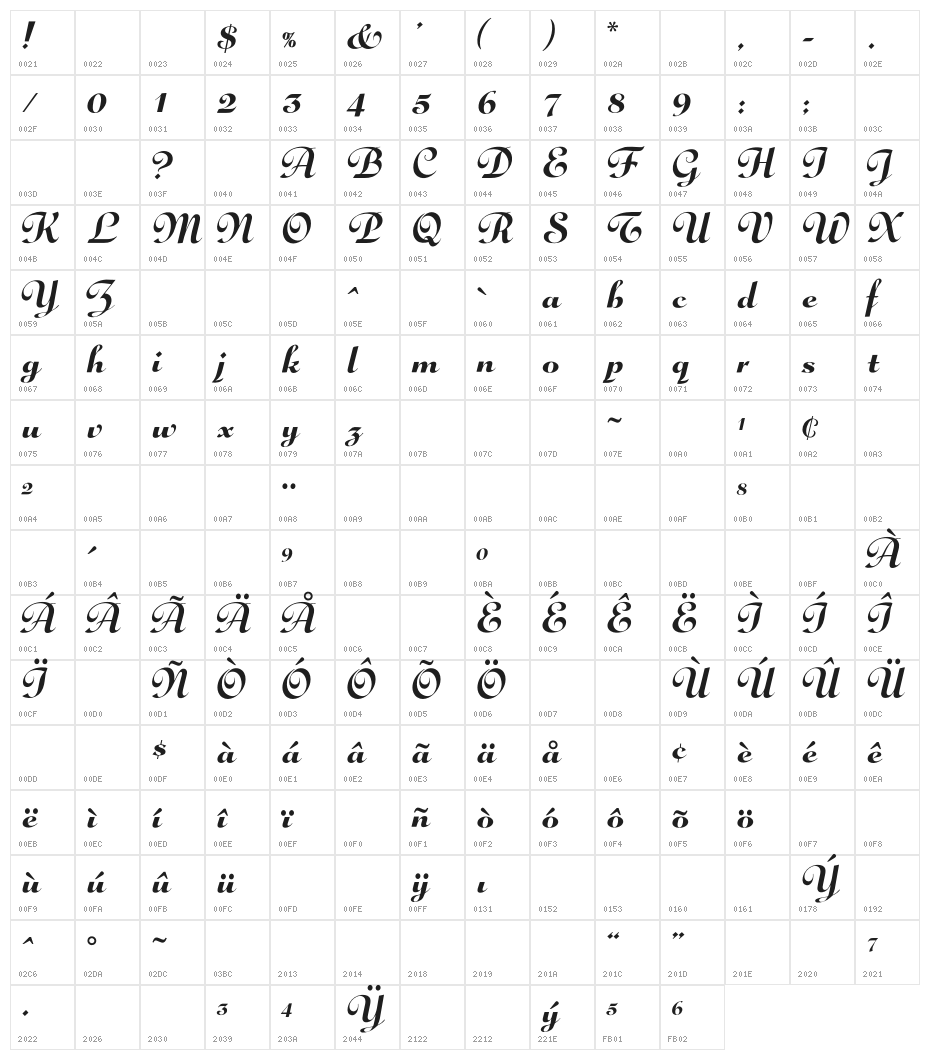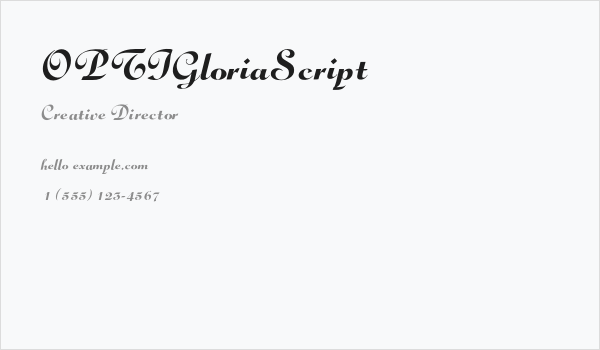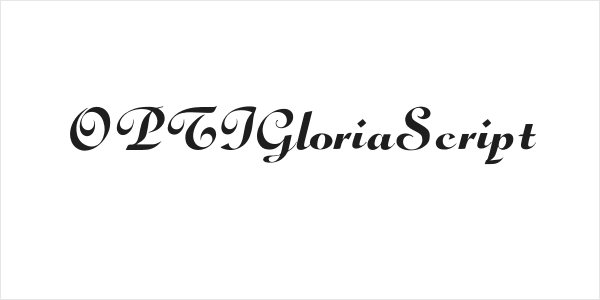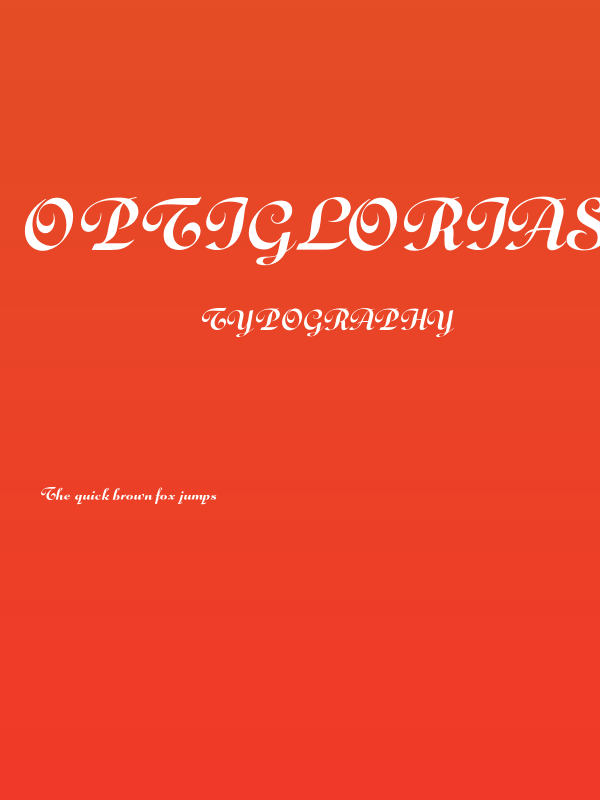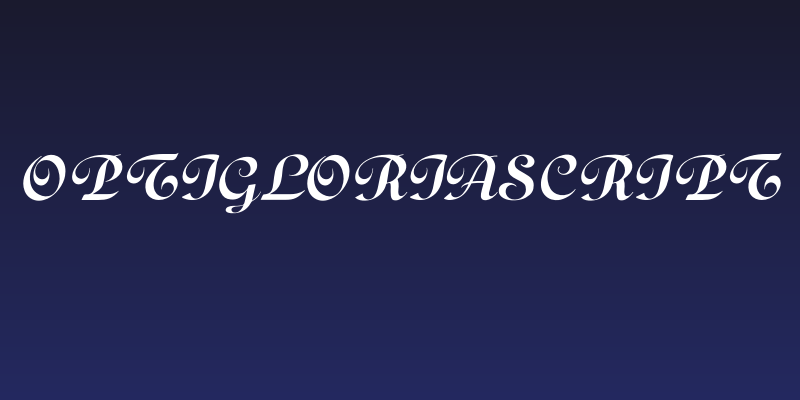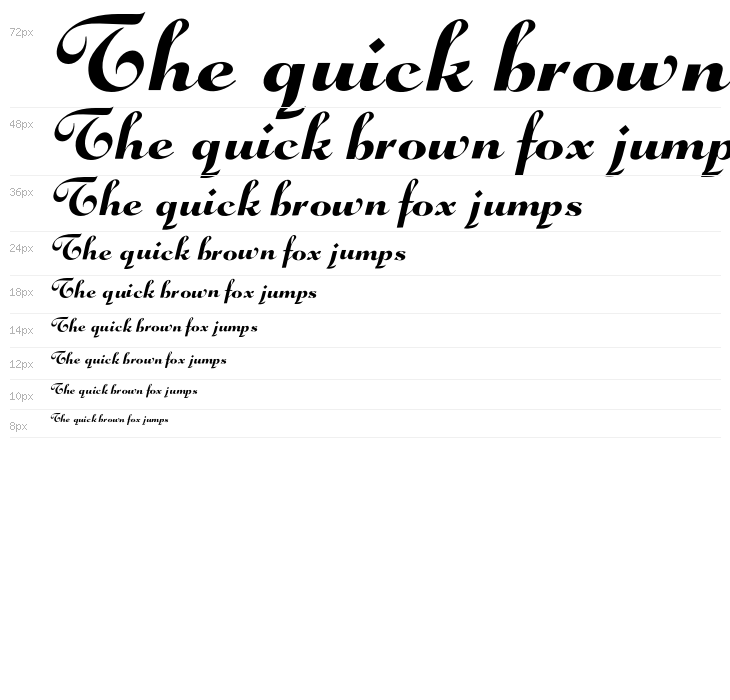
OPTIGloriaScript Font
OPTIGloriaScript Description
This elegant script font features a flowing, cursive style with a classic touch. The uppercase letters are ornate, with sweeping curves and flourishes that give a sense of sophistication and grace. The lowercase letters maintain a consistent flow, enhancing readability while preserving the decorative nature of the script. The numerals are styled to match the letters, with slight curves and a bold presence. Special characters are thoughtfully designed to complement the overall aesthetic, making this font versatile for various uses. The bold strokes and high contrast between thick and thin lines add to its striking appearance, making it suitable for formal invitations, branding, and decorative purposes.
Overall StyleClassic
Use CaseLogos, Headlines, Invitations
Proposed ProjectsIdeal for wedding invitations, luxury branding, elegant signage, and decorative print materials.